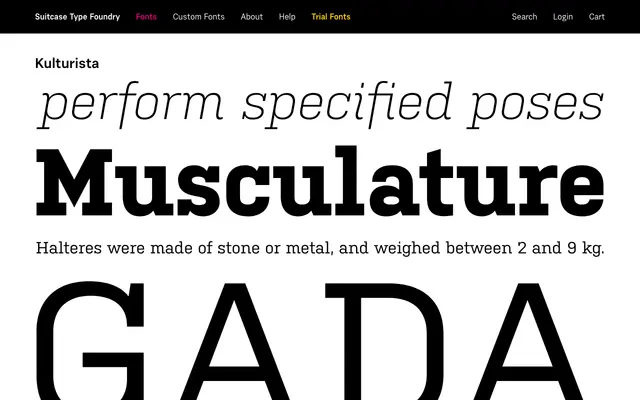
A humanist serif from Suitcase Type Foundry, sitting alongside sibling families Idealista and Nudista in the foundry's '-ista' range.
Part of Suitcase Type Foundry's humanist-leaning '-ista' collection, Kulturista is a serif designed for text and editorial use. It shares design sensibilities with Idealista and Nudista, suggesting a warm, readable character suited to body copy and cultural publishing contexts. The page provided limited detail on weights and features, but the family fits squarely within the foundry's Central European typographic tradition.
The '-ista' suffix naming convention at Suitcase Type Foundry is associated with their humanist type families; without further detail from the page, Kulturista is classified as a humanist serif based on its companion families Idealista and Nudista, which share similar humanist characteristics.